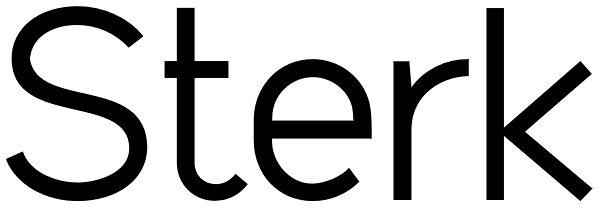
Sterk
The end of the characters in Sterk aren't cut horizontal, each one of them is let go in their own spaces. In this way, much stronger, freer and independent appearance results. With this typeface, unique typographies can be created, regular legible...